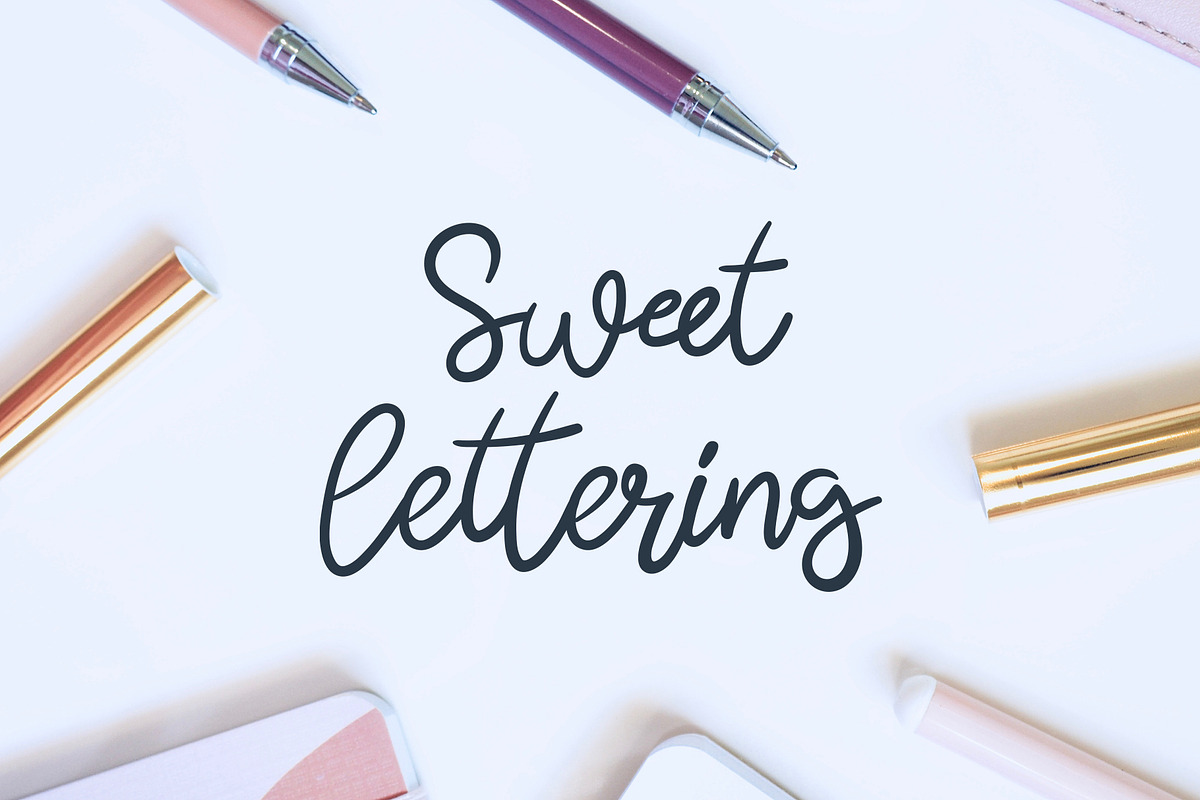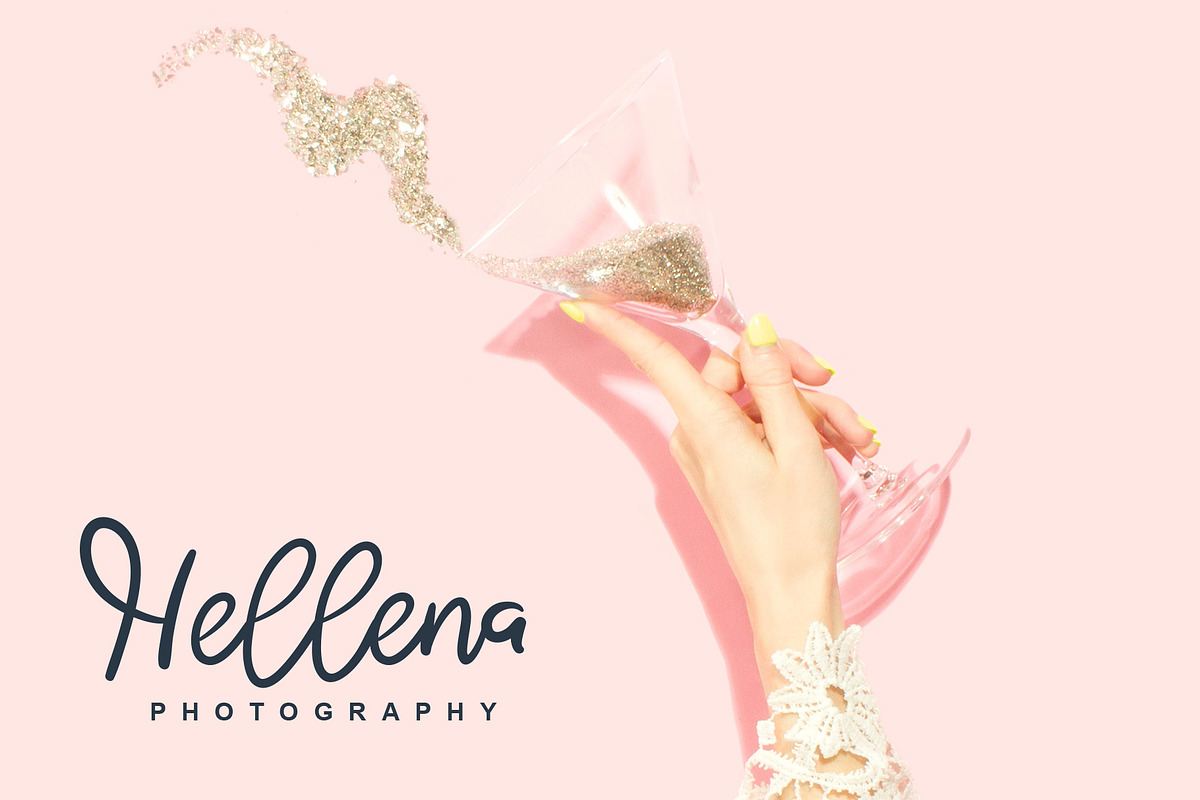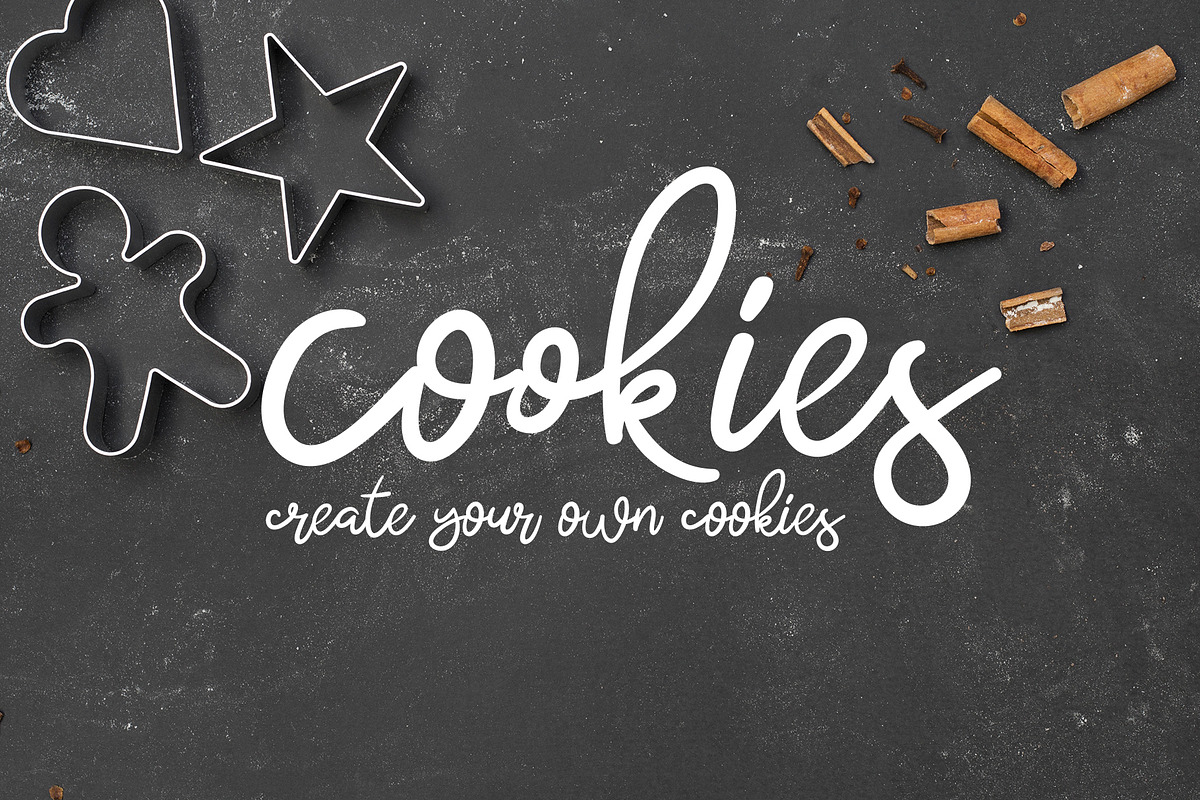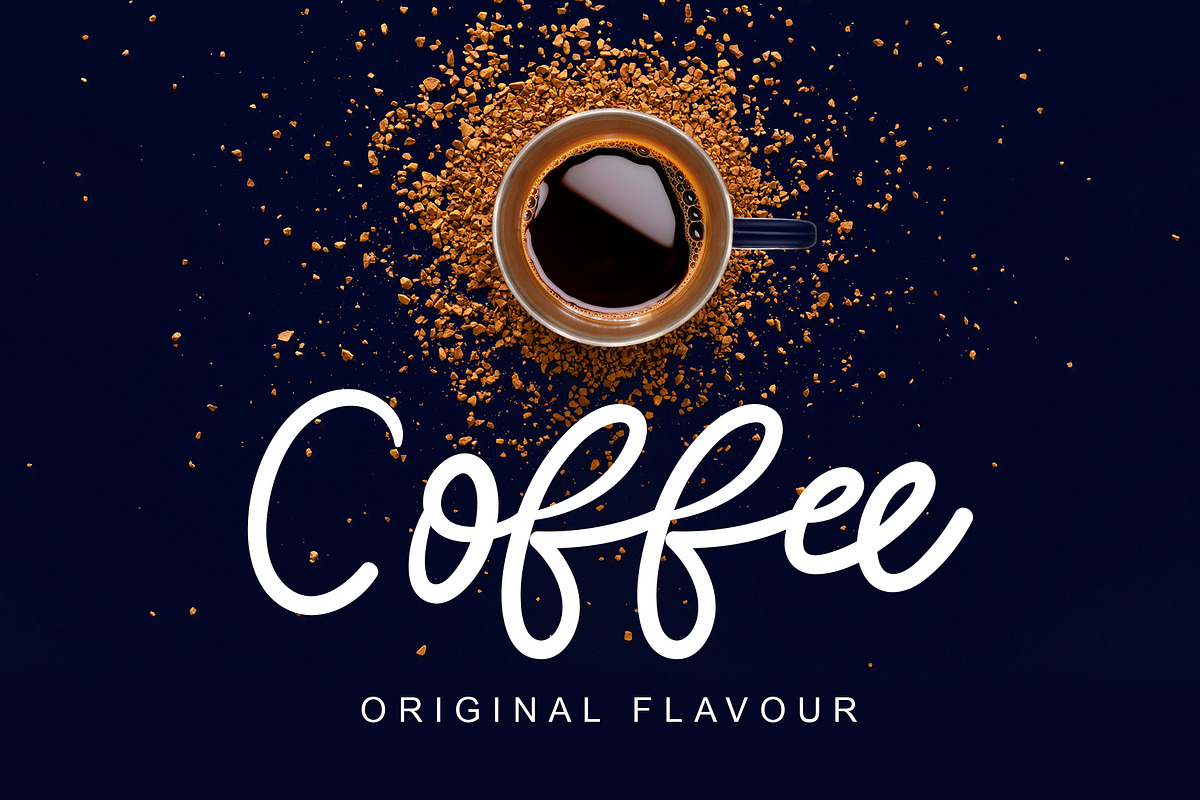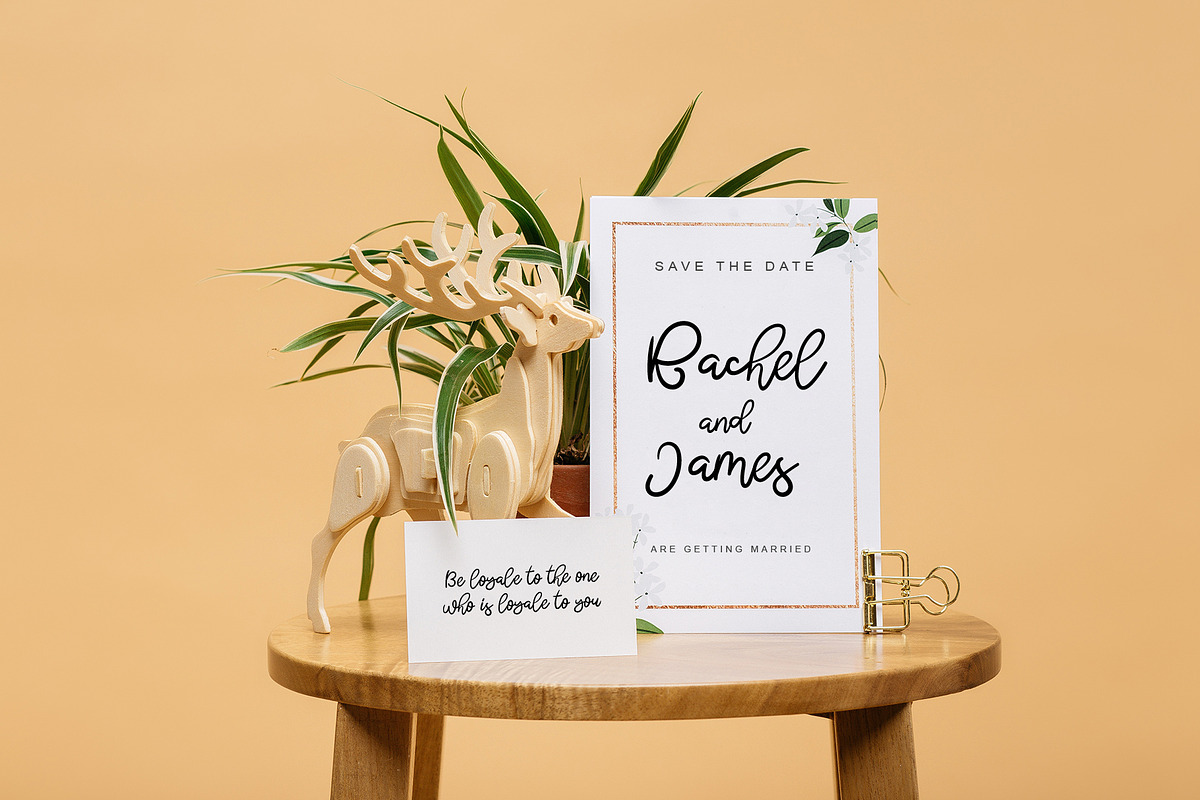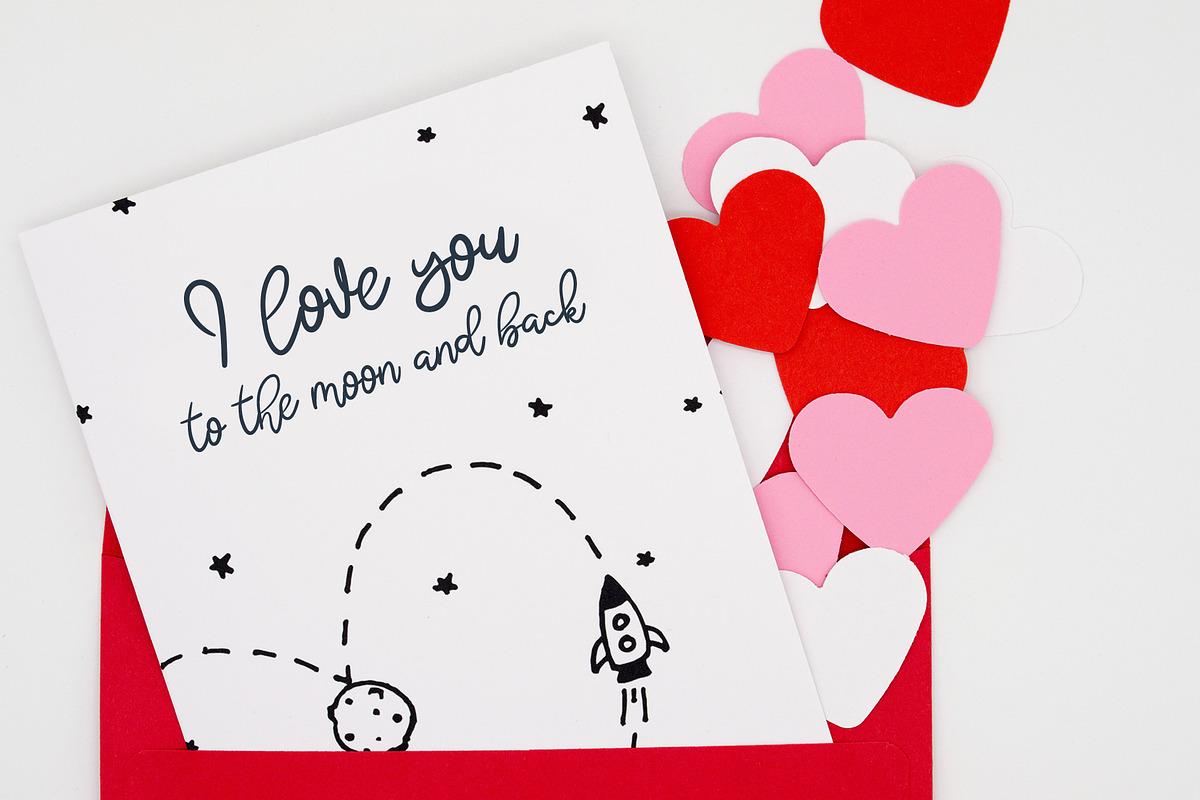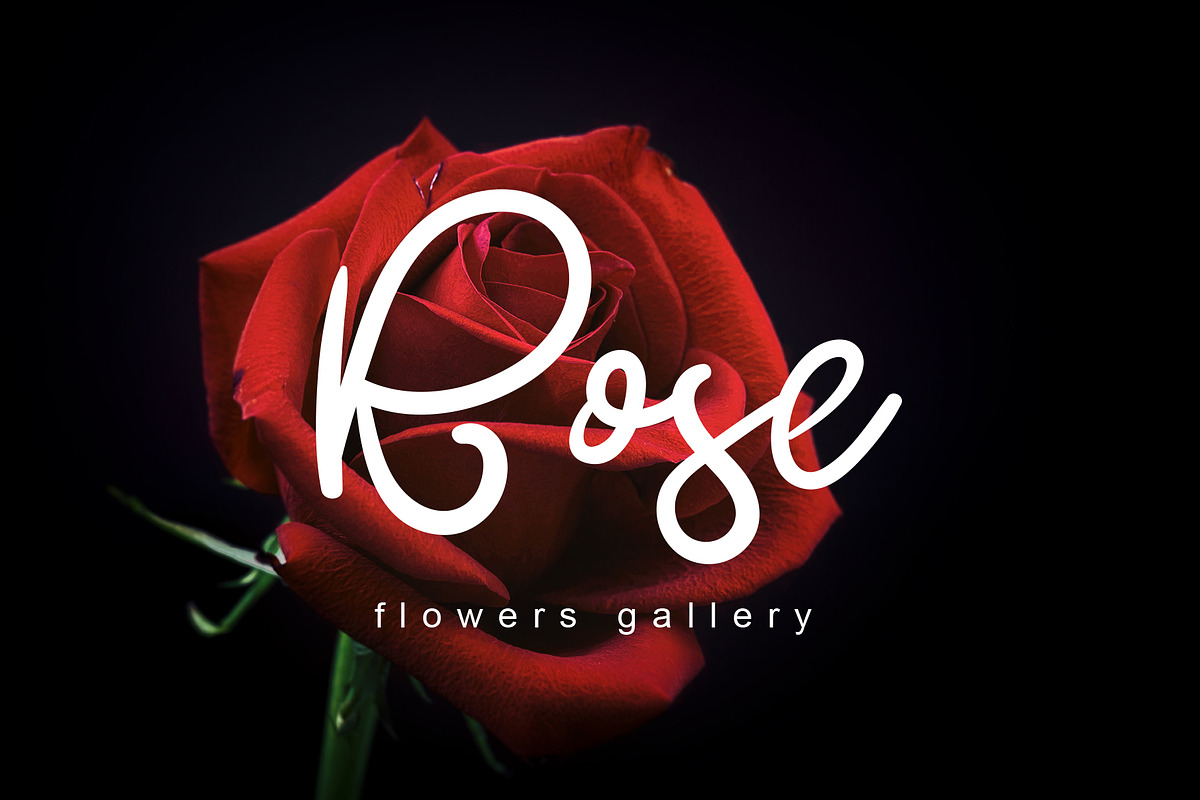
Butterfly a lovely script font
Butterfly - a lovely script font font is a handwritten script font with a clear and sweet style, this font is great for your next creative projects such as bouncy lettering set for envelopes, logos, typography, branding and greeting cards, printed quotes, invitations, cards, product packaging, headers, logotypes, letterheads, posters, clothing designs, labels, etc. .
Butterfly comes with uppercase letters, lowercase letters, numbers, punctuation, ligature and multi lingual support
Butterfly a lovely script font by alphArtype fits naturally into Branding, posters, packaging, typography.